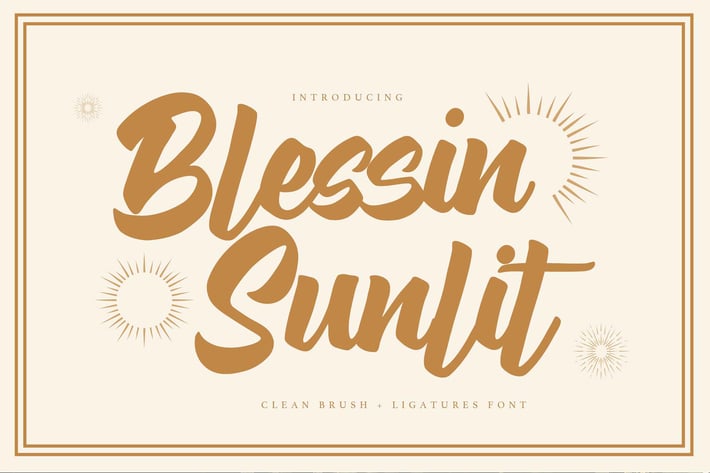
Blessin Sunlit - Clean Brush Ligatures Font
Hello Everyone, introduce our new product Font Blessin Sunlit This Is Clean Brush Ligatures Font.This is a Textured Natural Style and hand written font .
This font Blessin Sunlit is great for your next creative project such as logos, printed quotes, invitations, cards, product packaging, headers, Logotype, Letterhead, Poster, Design this font is great for your creative projects such as watermark on photography, and perfect for logos & branding, invitation,advertisements,product designs, stationery, wedding designs,label ,product packaging, special events or anything that need handwritting taste.
That is has charming, authentic and relaxed characteristic more natural look to your text.